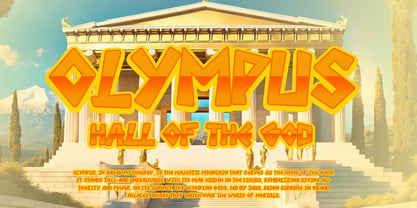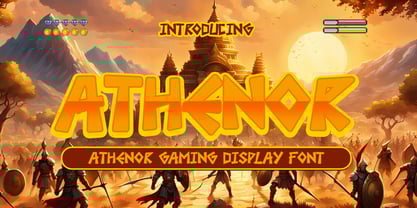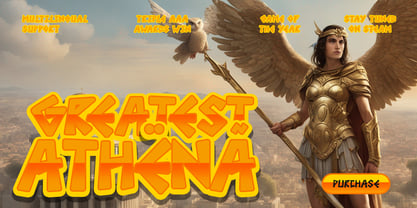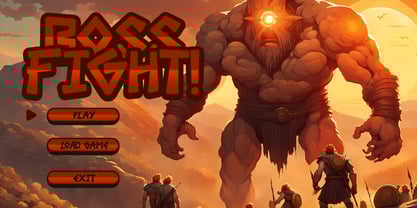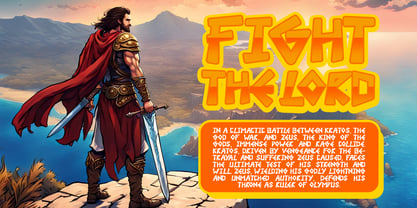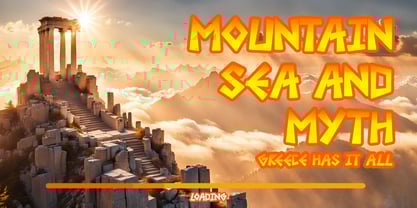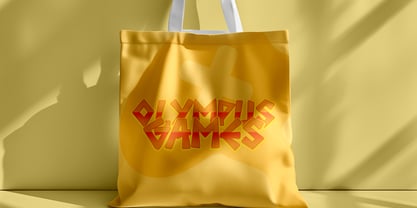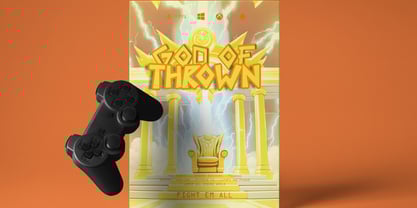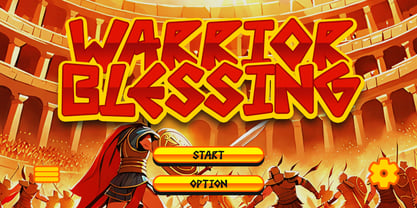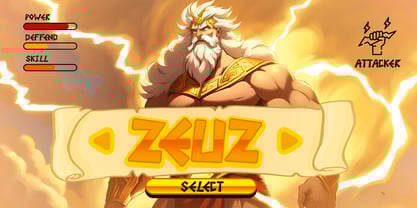
Athenor
The Athenor Font Family was designed by Ian Mikraz and published by IanMikraz Studio. Athenor contains 1 styles. More about this family
Unleash the power of "Athenor," a gaming-inspired display font that exudes boldness and energy. With its sharp edges, dynamic strokes, and eye-catching design, Athenor is perfect for creating impactful titles, banners, and game-related graphics. Whether you're developing a fantasy adventure game, designing a poster, or creating standout branding for a gaming event, this font elevates your creative projects with its unique style.
Athenor seamlessly blends modern typography trends with the adventurous spirit of medieval battles and epic quests. Its versatile use spans across logos, merchandise, gaming content, and social media, ensuring your work stands out from the crowd. Dive into the world of bold design with Athenor, where every letter tells a story of strength and creativity.